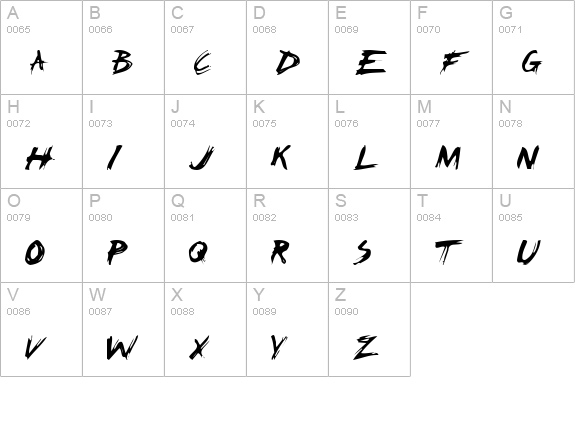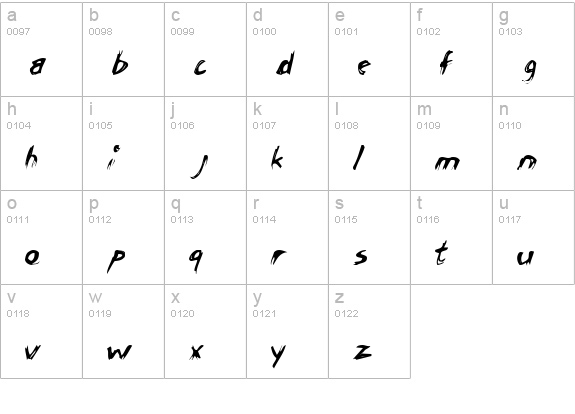
ChickenScratch AOE Font Details
Introducing ChickenScratch AOE font, a playful and whimsical typeface that exudes charm and character. With its hand-drawn style and unique design, this font is perfect for adding a touch of fun to your projects. Whether you're working on invitations, greeting cards, or branding materials, ChickenScratch AOE will bring a quirky and eye-catching element to your designs. Best of all, ChickenScratch AOE font is completely free to download at FontsMarket.com. Simply head over to the website to access this delightful font and start incorporating its creative flair into your work today. Don't miss out on the opportunity to add a touch of personality to your projects with ChickenScratch AOE font - download it now and let your creativity soar!